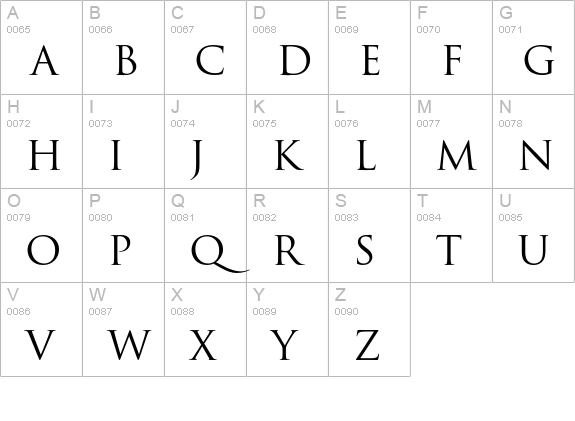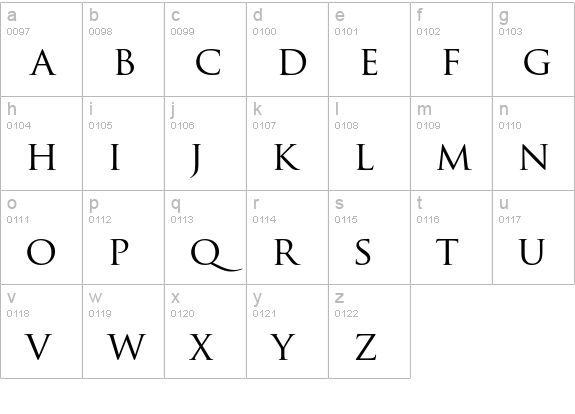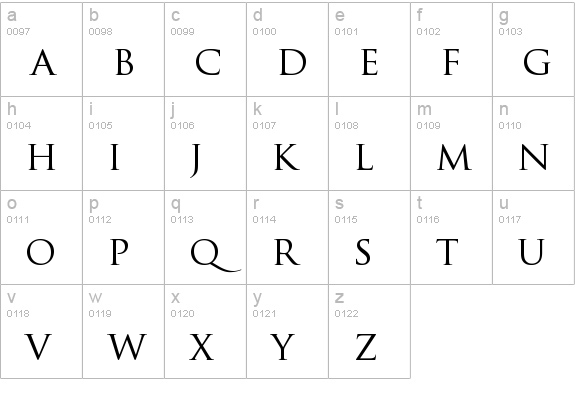
Trajan Pro is a timeless and elegant font that exudes sophistication and class. Its refined letterforms and graceful curves make it a favorite choice for designers and typographers alike. This versatile font can be used for a wide range of projects, from branding and advertising to editorial design and signage. One of the best things about Trajan Pro is that it is available for free download at FontsMarket.com. This means that anyone can access and utilize this exceptional font without having to spend a fortune. Whether you are a professional designer or a hobbyist, Trajan Pro offers you the opportunity to create stunning and professional-looking designs without breaking the bank. The clean lines and balanced proportions of Trajan Pro lend themselves well to both print and digital media. Its strong presence and classic appeal make it perfect for headlines and titles, while its legibility ensures that it is equally effective in body text. No matter the size or scale of your project, Trajan Pro will deliver a polished and refined look that is sure to captivate and engage your audience. With its wide range of weights and styles, Trajan Pro offers endless possibilities for creative expression. Whether you prefer a bold and impactful look or a more subtle and understated aesthetic, this font has got you covered. Its versatility allows it to adapt to various design needs and contexts, making it a valuable addition to any designer's toolkit. So why wait? Discover the beauty and versatility of Trajan Pro today. Download it for free at FontsMarket.com and unlock a world of creative possibilities. Whether you are designing a logo, creating a website, or working on a print publication, Trajan Pro will elevate your designs and help you make a lasting impression.